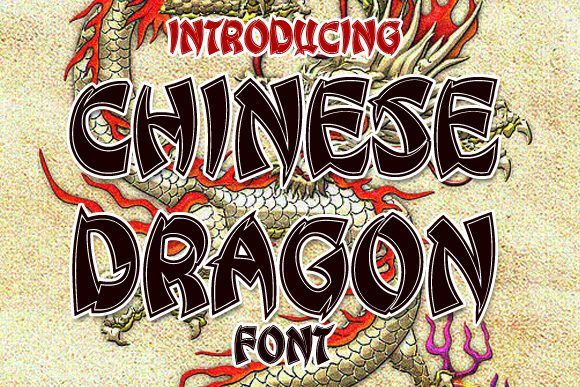
Introducing Chinese Dragon Font - A Masterpiece of Elegance and Power!
Unleash the captivating essence of traditional Chinese calligraphy with Chinese Dragon Font, a stunning and bold display font that will elevate your designs to awe-inspiring heights. Crafted by the talented designer vladimirnikolic, this font is a true work of art, perfect for those seeking the best fonts for print fancy projects.
With its intricate strokes and mesmerizing curves, Chinese Dragon Font embraces the spirit of ancient Chinese culture, infusing your designs with a touch of mystique and grandeur. This font family, classified under the display category, offers a unique and eye-catching appeal that is sure to captivate your audience.
Unleashing the power of Chinese Dragon Font, your creative possibilities are boundless. Whether you're designing stunning posters, eye-catching banners, or engaging social media graphics, this font will effortlessly transform your work into a visual masterpiece. Its versatility allows it to adapt to various design projects, providing an unmatched level of flexibility.
Why settle for ordinary when you can embrace extraordinary? Chinese Dragon Font is far from your average font. Its emotional impact is undeniable, leaving a lasting impression on anyone who encounters it. Evoking a sense of awe and admiration, this font will seduce your audience, drawing them closer to your message with its mesmerizing presence.
Dare to be different and immerse yourself in the enchanting world of Chinese Dragon Font. Let its captivating strokes tell a story of power, elegance, and sophistication. With every curve and line, this font breathes life into your designs, infusing them with an irresistible charm that commands attention.
Step into a realm where creativity knows no bounds. Chinese Dragon Font is the key to unlocking a world of design possibilities. As you dive into its vast collection of characters and symbols, you'll discover a treasure trove of artistic expression, ready to bring your wildest visions to life.